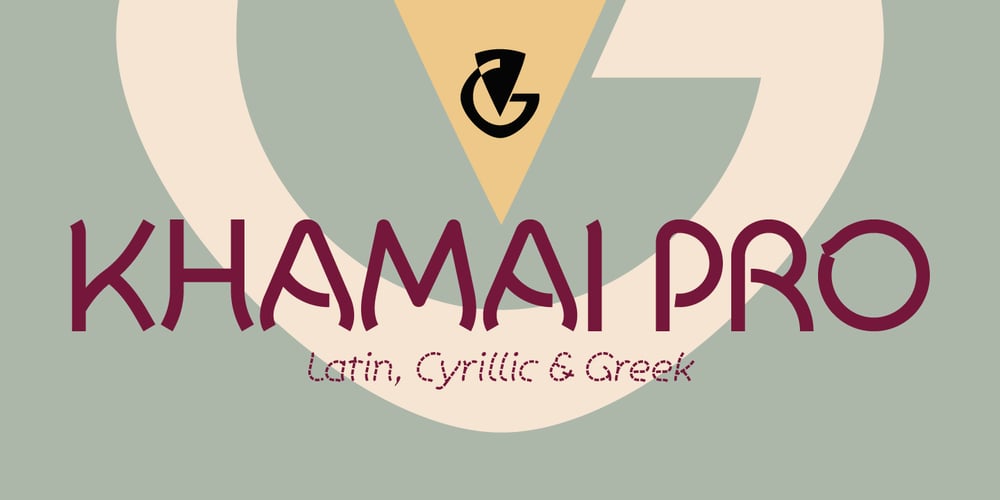
Khamai Pro Font Family was designed by Vangelis Dim. Gardikiotis and published by DBSV. Khamai Pro contains 16 styles and family package options. Khamai Pro is a first attempt at writing a monoline main feature of the curves. Completed after 17 months with many design twists,and also an attempt to provide a different visual design and style as Staccato: (dashed line) Rail: (double line) and Tribe: (triple line). This series of 16 fonts with 625 glyphs each includes true italics and supports Latin, Greek and Cyrillic.